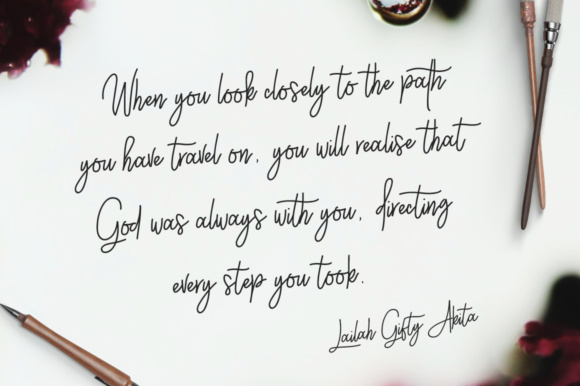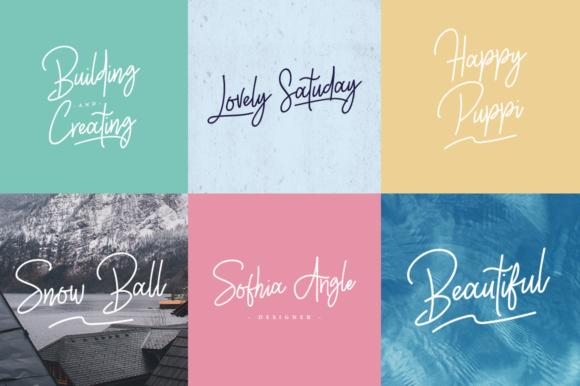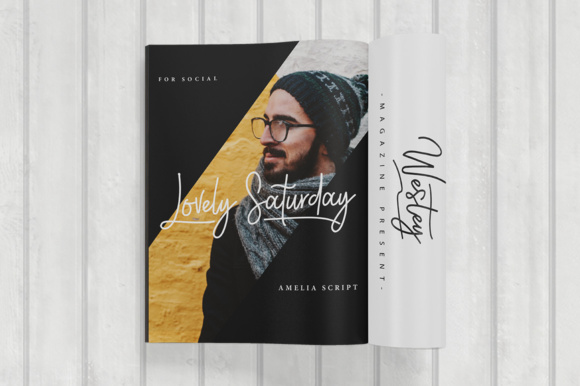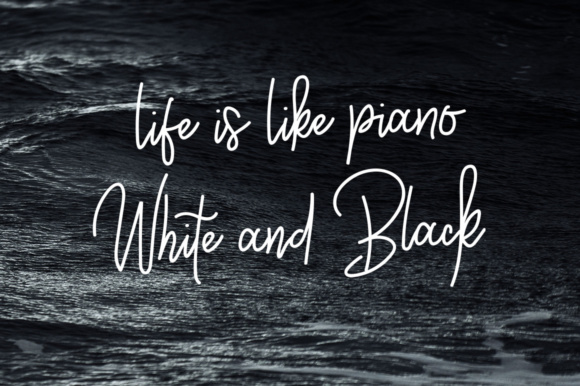
Westey Font
About Westey Font
Westey is a beautiful signature script font. It contains lots of swashes and a set of beautiful decorations. Westey is perfect for wedding card designs, logotypes, website headers, fashion designs and much more.